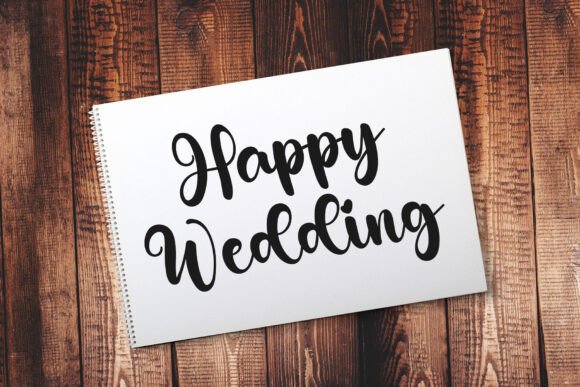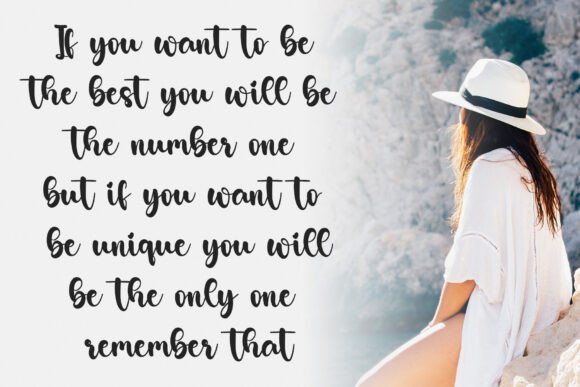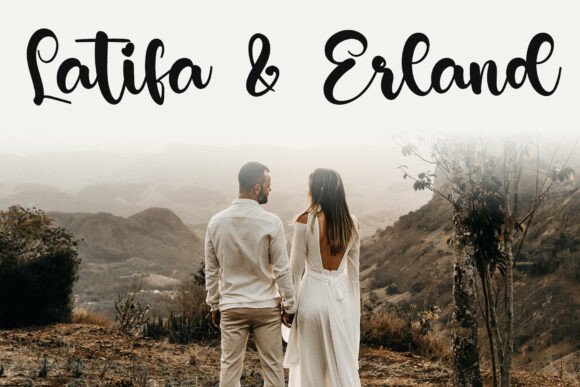
Better Autography Font
Better Autography – A Delightful Elegant Script Font Introducing Better Autography – a beautifully crafted handwritten script font that exudes elegance and charm. Perfect for branding, invitations, logos, and any creative project, this font combines fluid, natural strokes with a touch of sophistication, making it an ideal choice for an Elegant Script Font.Whether you’re designing a bakery logo, a romantic greeting card, or stylish packaging, Better Autography adds a personal and refined touch. Elevate your designs with this versatile script handwriting font!